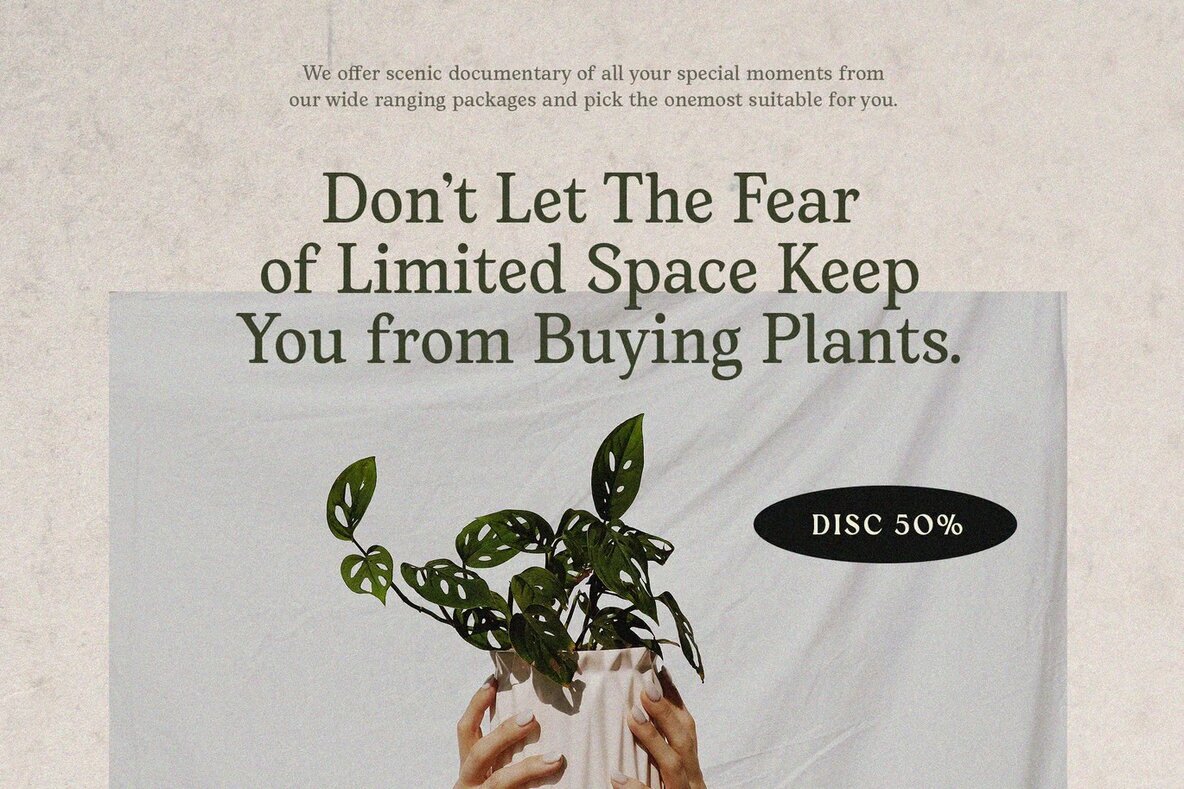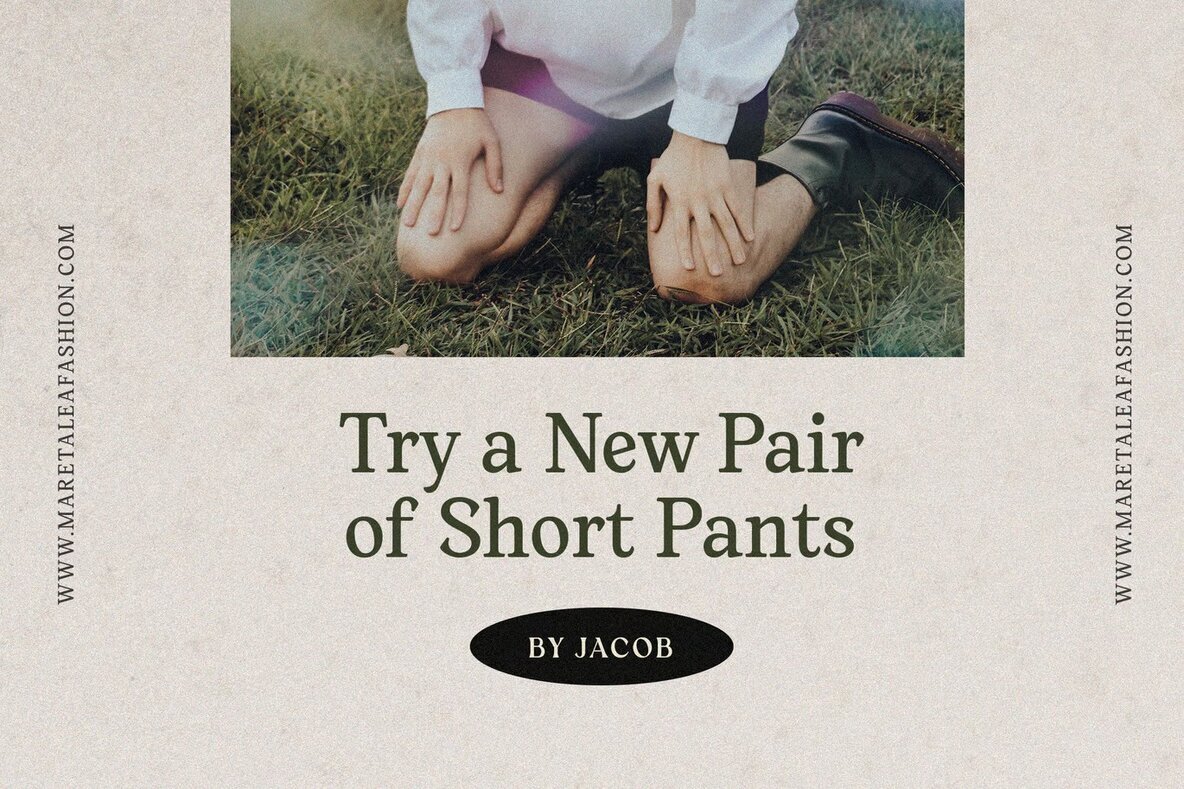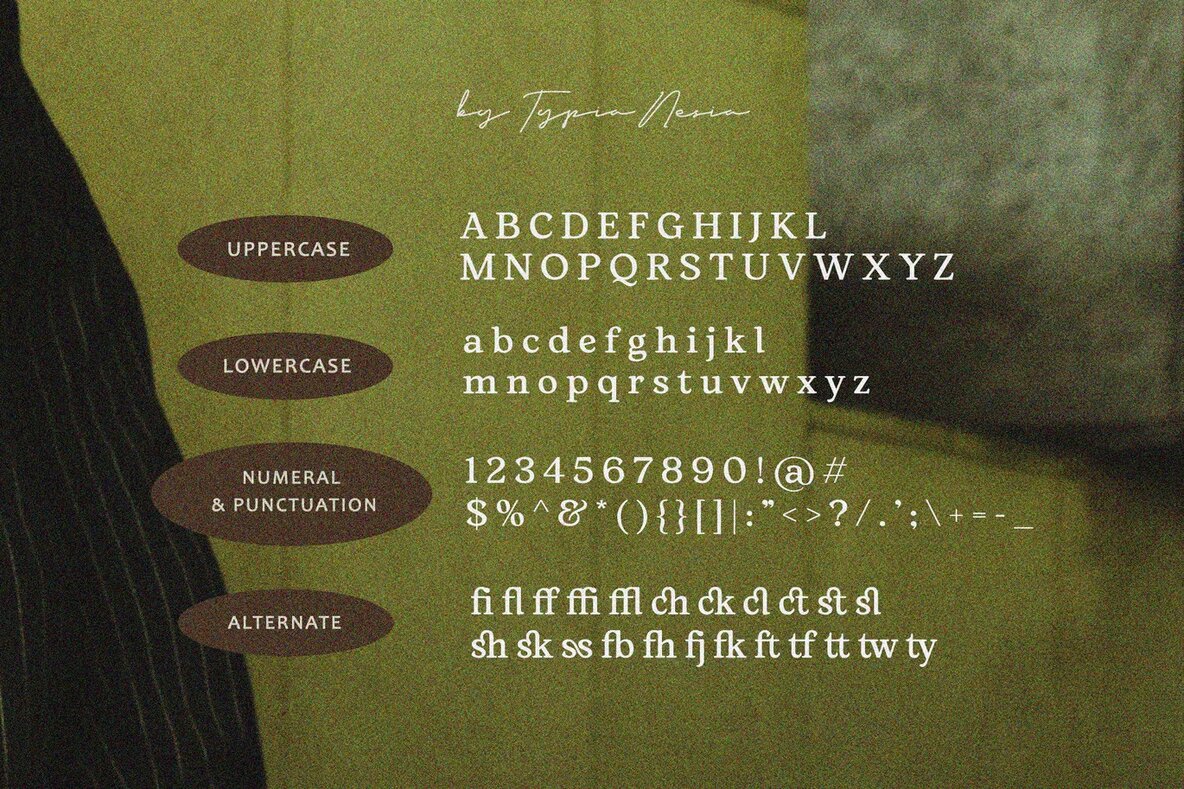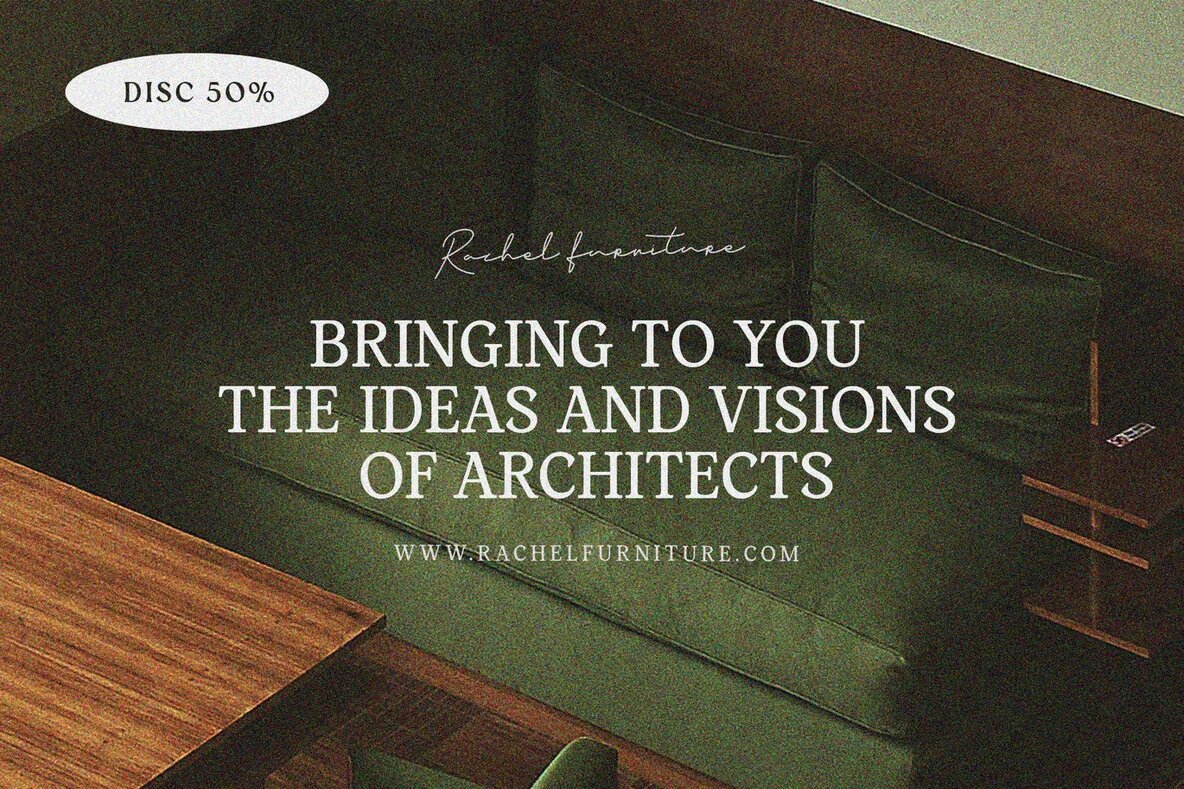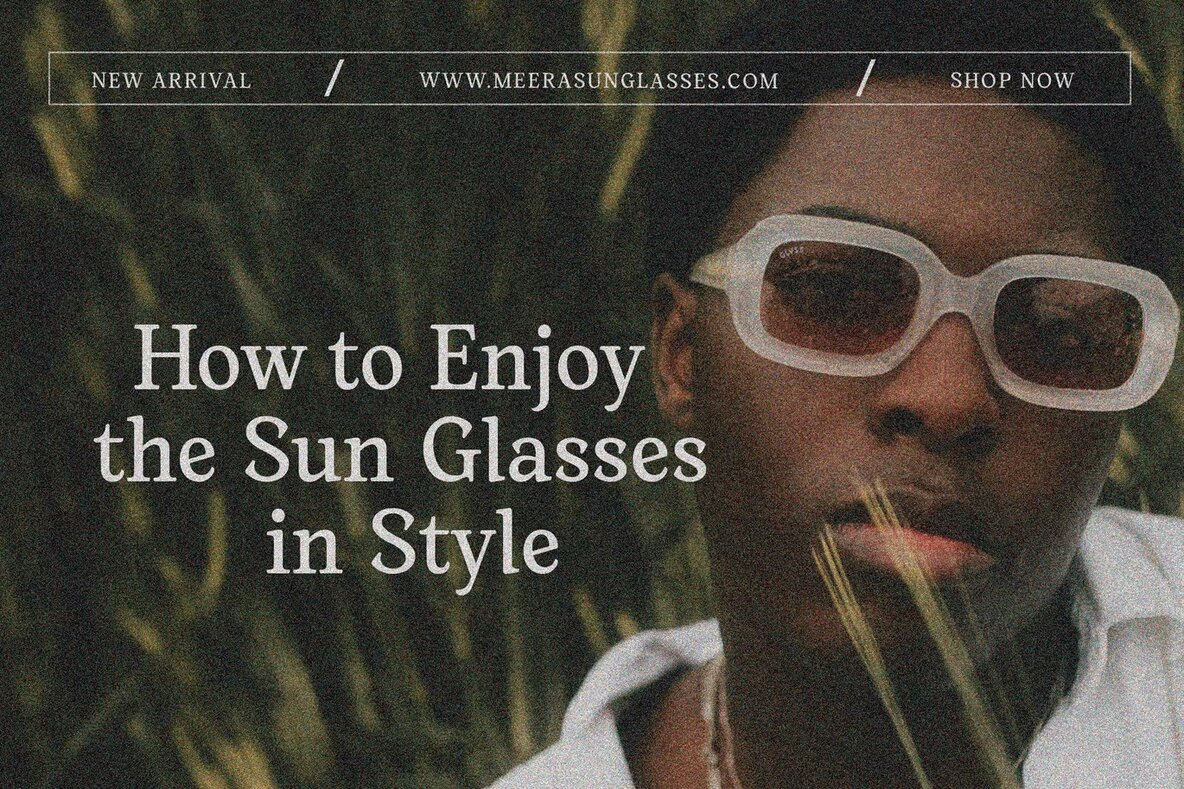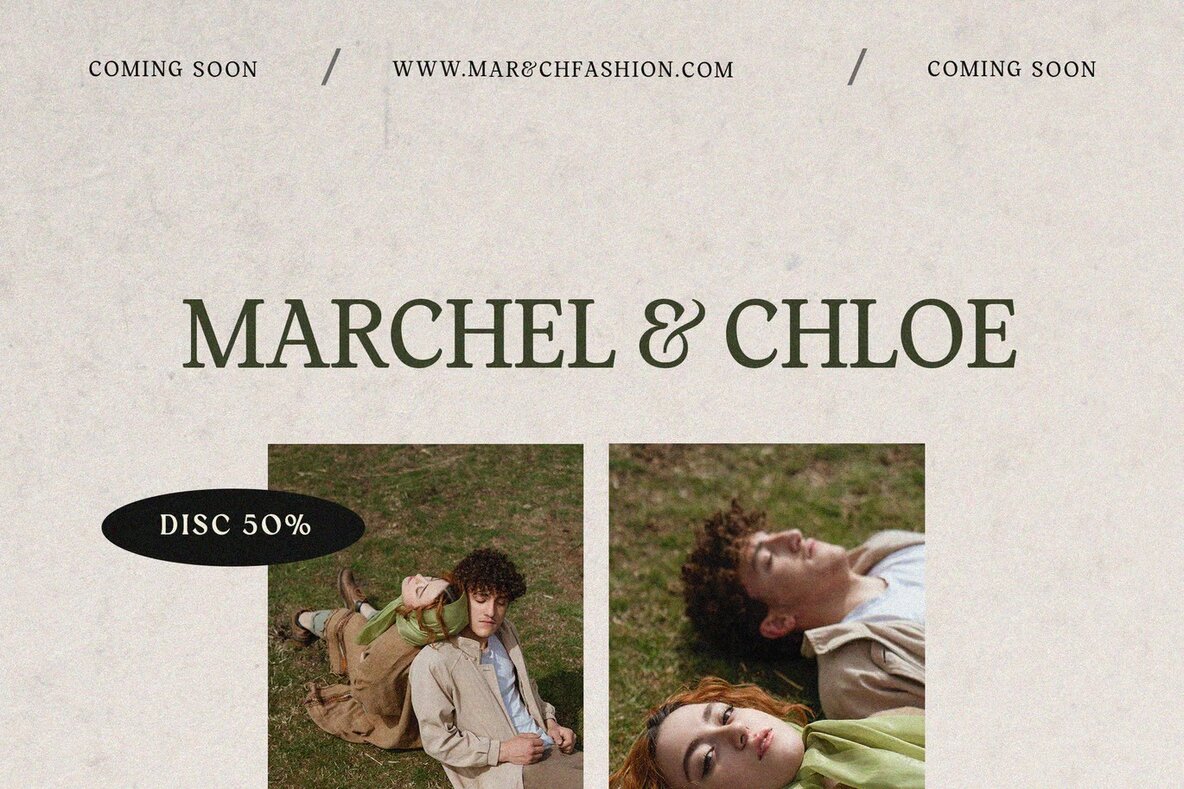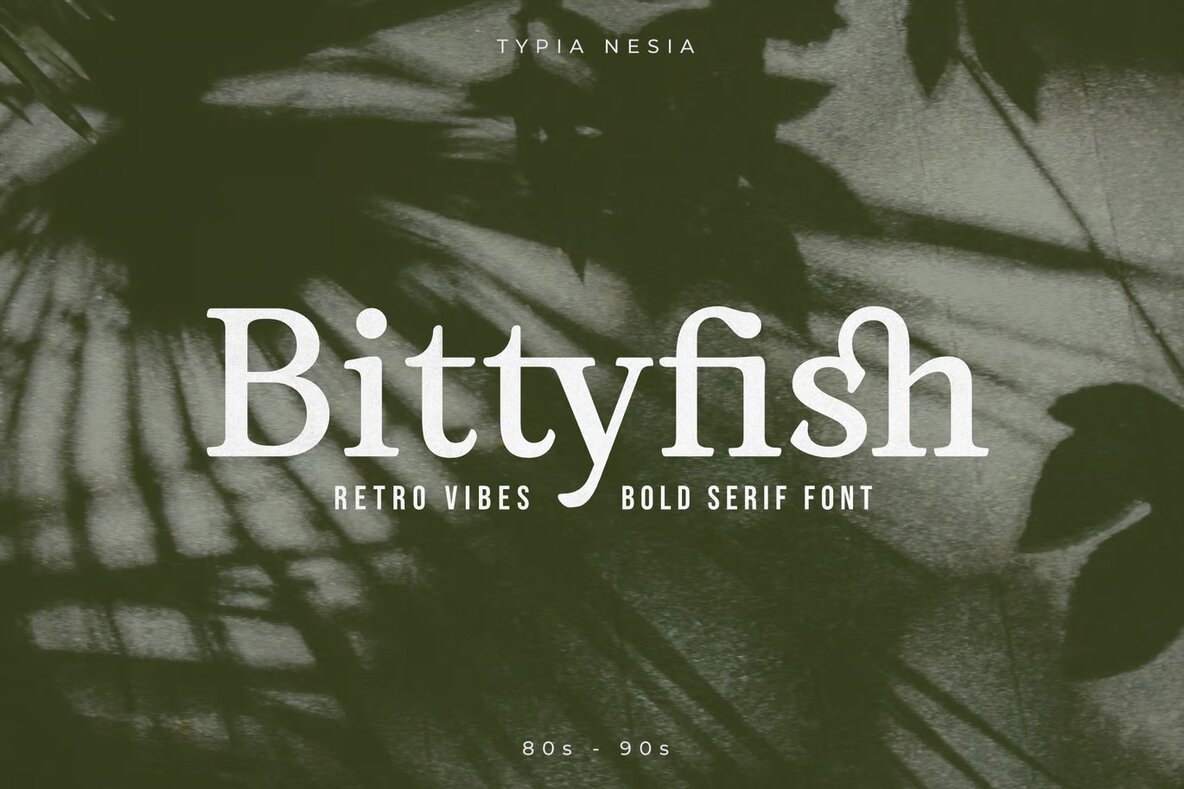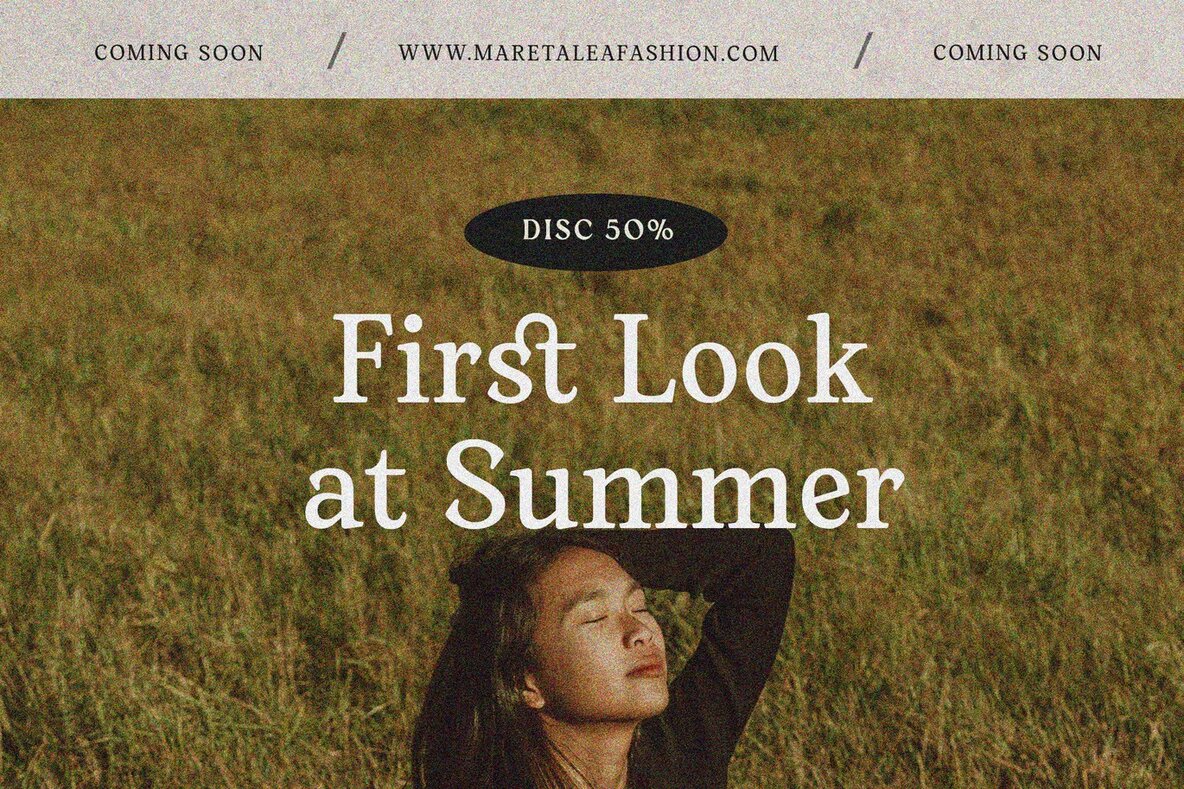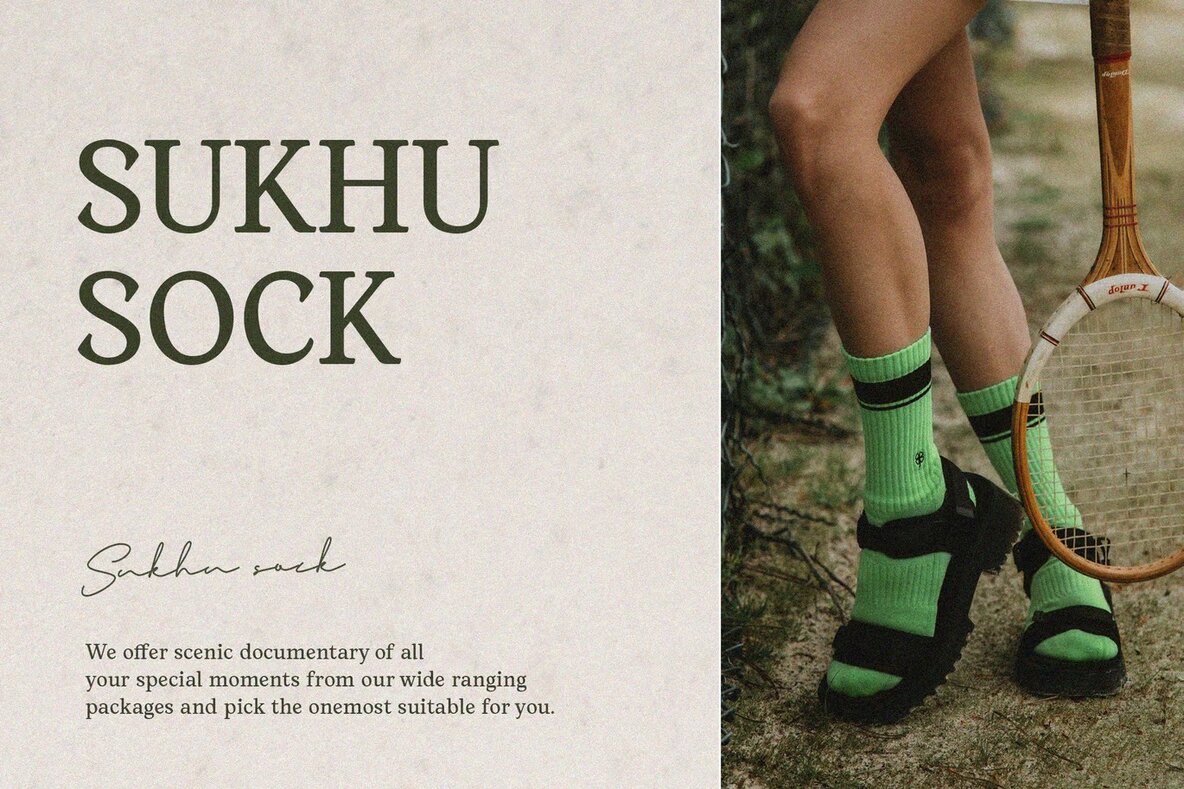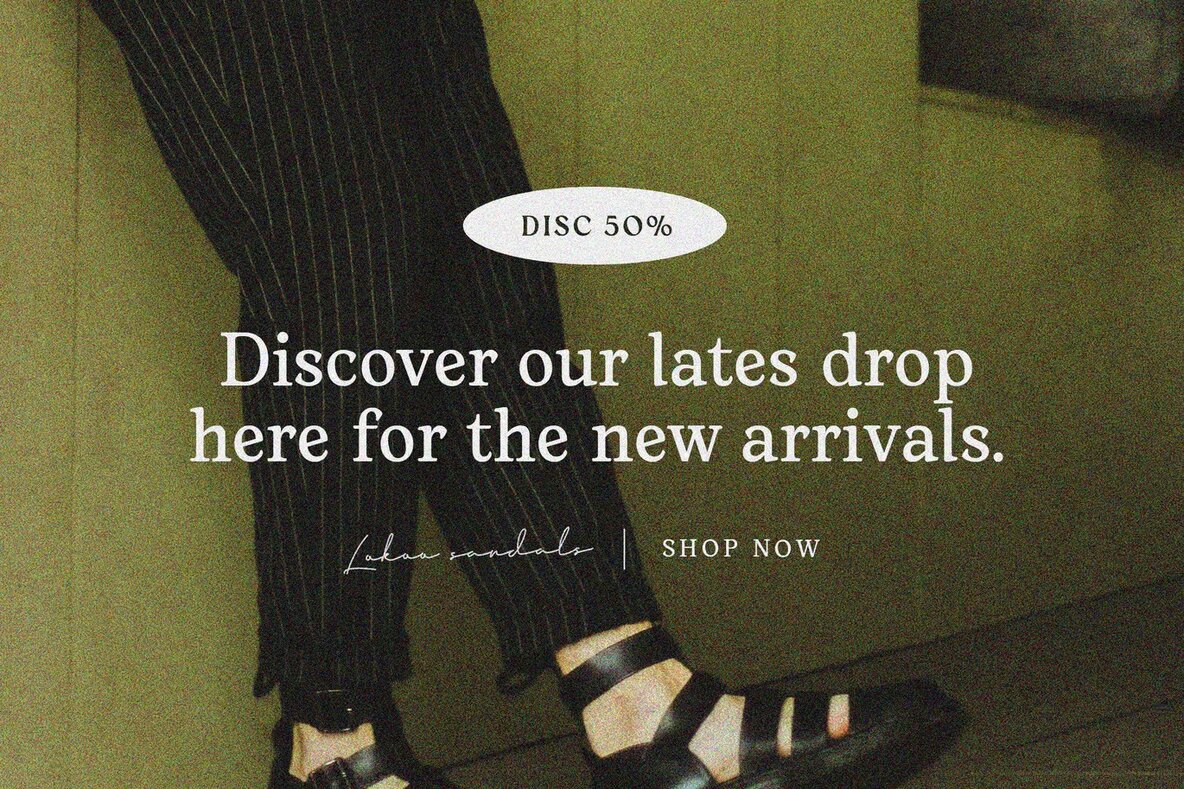
Bittyfish Font
Bittyfish Regular
Bittyfish is an elegant serif font, ideal for a variety of high-end projects. Whether you're working on luxury logos and branding, classy editorial designs, or stylish magazine layouts, Bittyfish brings a touch of sophistication to every project. Its refined appearance makes it a superb choice for cosmetic brands, fashion promotions, and boutique branding. This font is also perfect for art gallery branding, museum projects, and architectural displays.
Additionally, Bittyfish is suitable for modern advertising designs, unique stationery projects, and beautifully crafted blog designs. It excels in creating stunning card invitations, art quotes, and home decor pieces. Utilize it for book covers, special event materials, and more. This versatile serif font enhances the elegance and professionalism of your work, making it an excellent addition to your design toolkit.